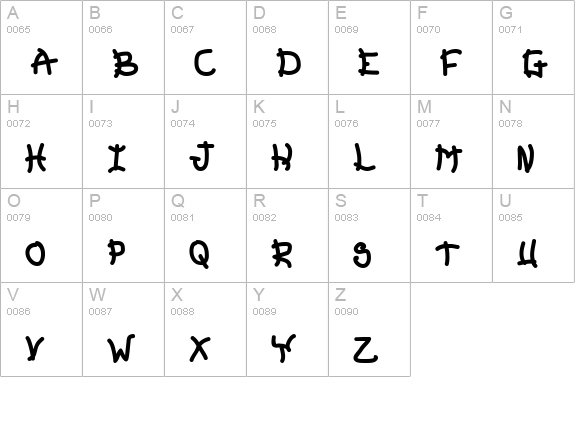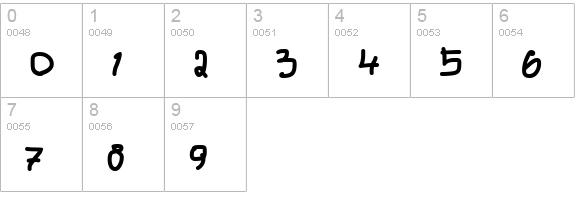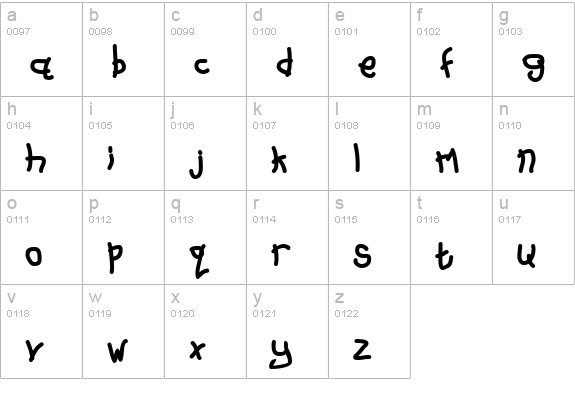
BN Sunday Kid Font Details
BN Sunday Kid font is a playful and charming typeface designed to bring a touch of fun and whimsy to your projects. With its friendly and cheerful appearance, this font is perfect for creating eye-catching designs for children's books, posters, invitations, and more. The rounded edges and uneven strokes give BN Sunday Kid font a hand-drawn feel that adds a unique and personal touch to your creations. What's even better is that BN Sunday Kid font is available for free download at FontsMarket.com. This means you can easily access this delightful font and start using it in your designs without any cost. Whether you're a professional designer or just someone looking to add a bit of joy to your projects, BN Sunday Kid font is a fantastic choice that is sure to bring a smile to your audience's faces. Download it today and let your creativity shine with this charming and freely available typeface.